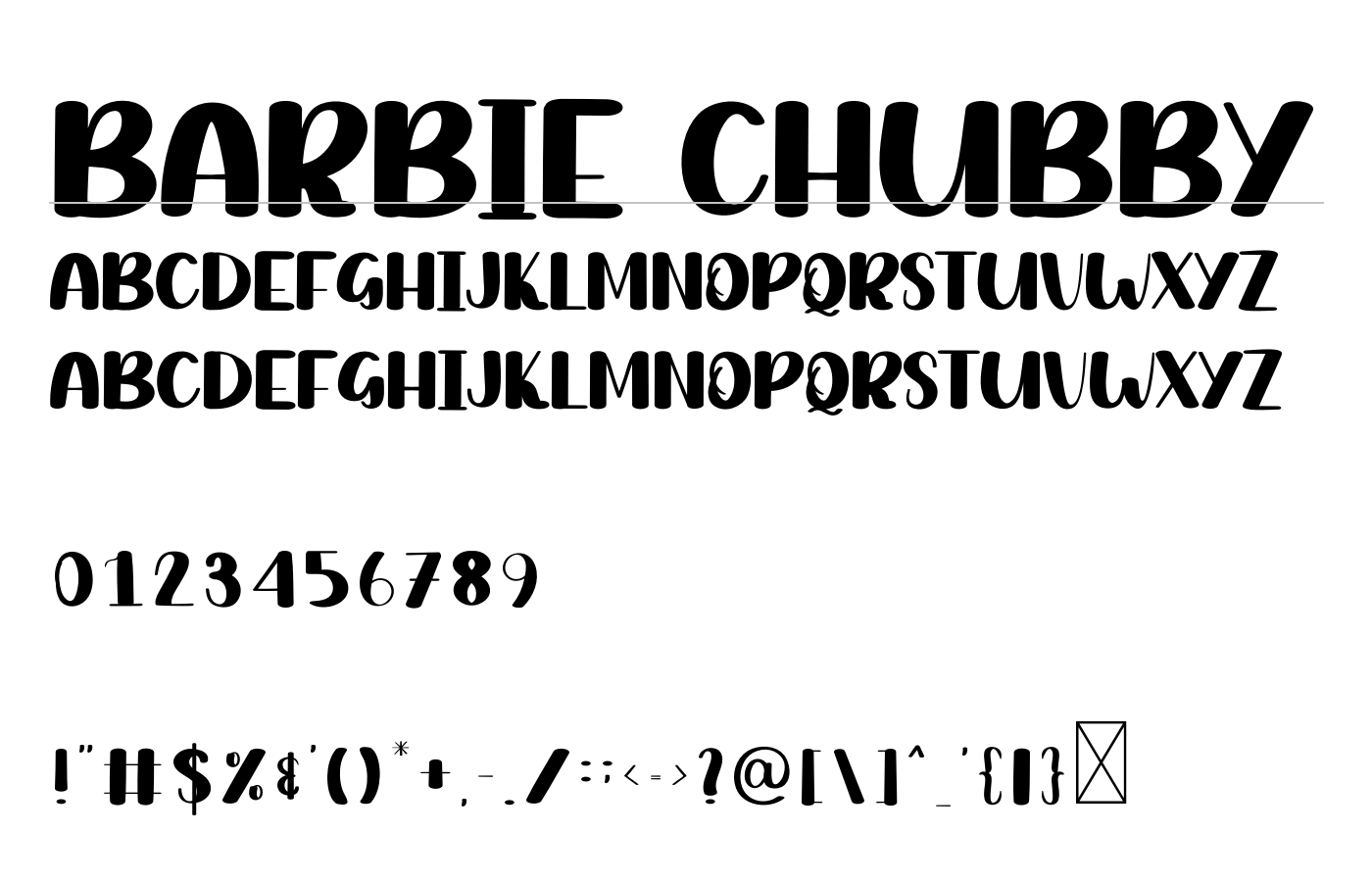
Barbie Chubby is a playful and bold sans serif font with rounded, chunky letterforms that give it a friendly and approachable feel. Its lively curves and varying stroke widths make it perfect for fun, casual designs like kids’ products, party invitations, or whimsical branding. This font shines best in headlines and logos where a cheerful, energetic vibe is desired.
Barbie Chubby Font